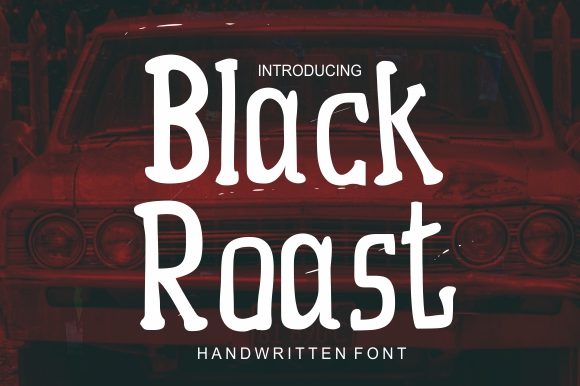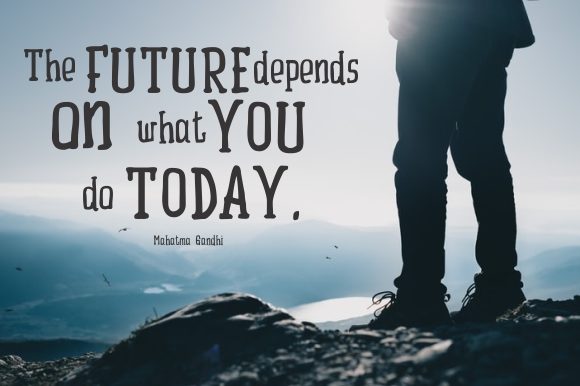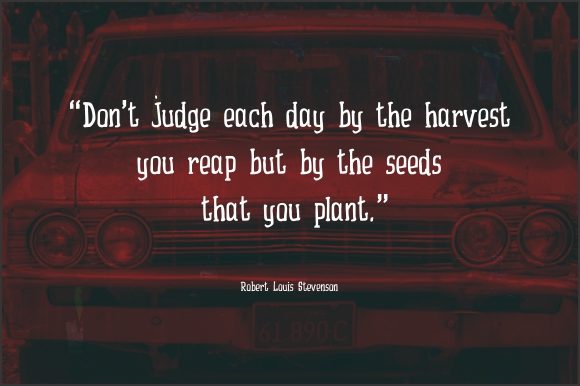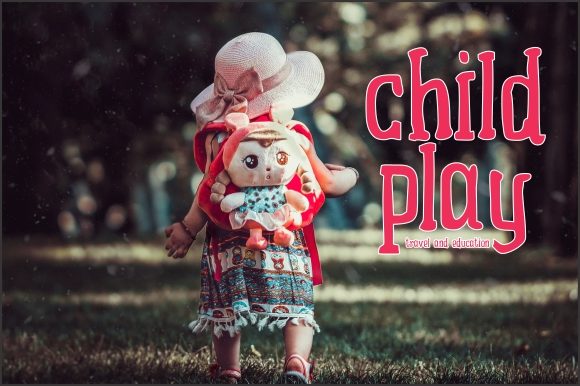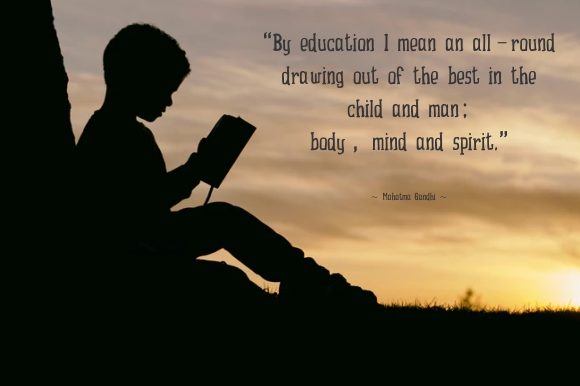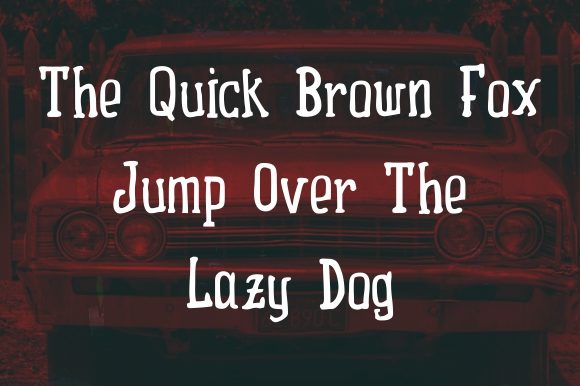
Black Roast Font
About Black Roast Font
Black Roast is a cute and casual handwritten font with an incredibly friendly feel. Whether you’re looking for fonts for Instagram or calligraphy scripts for DIY projects, this font will turn any creative idea into a true piece of art!